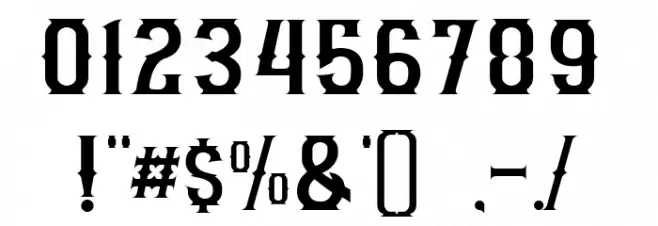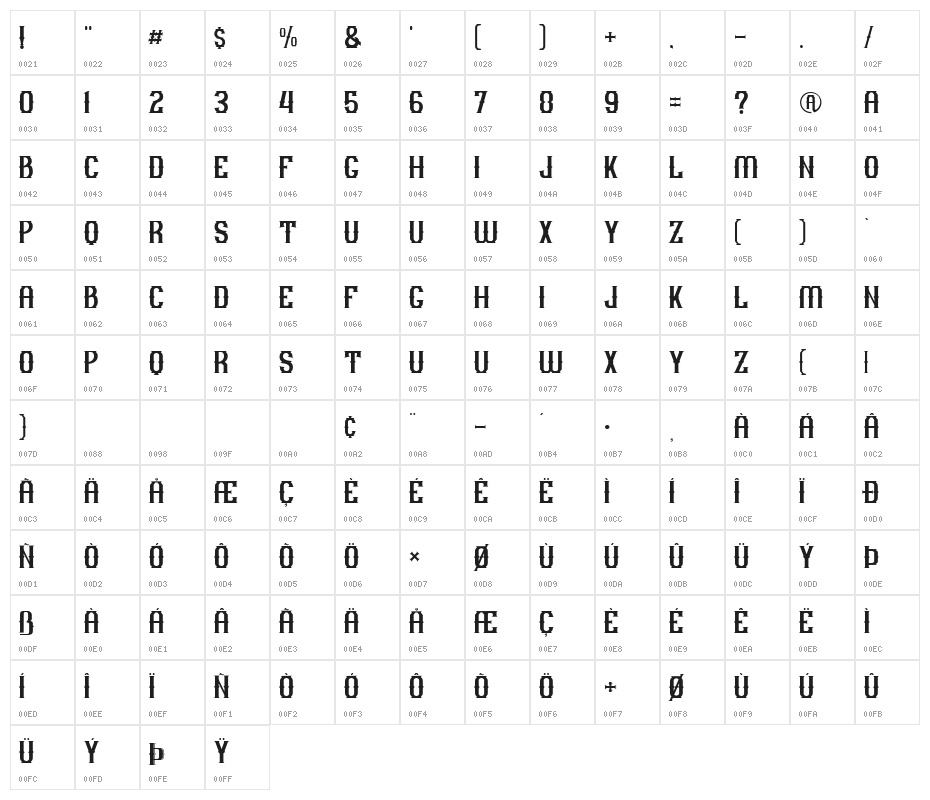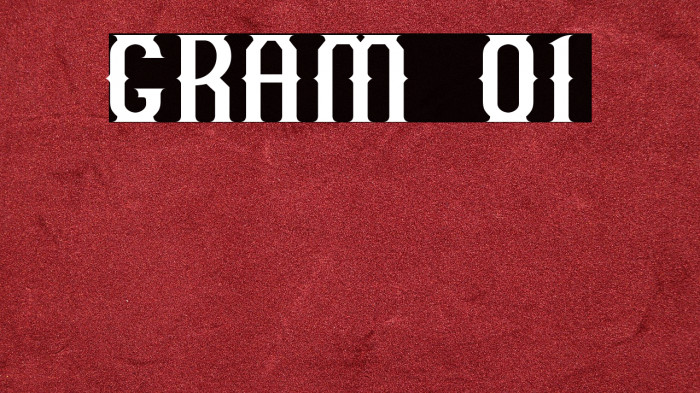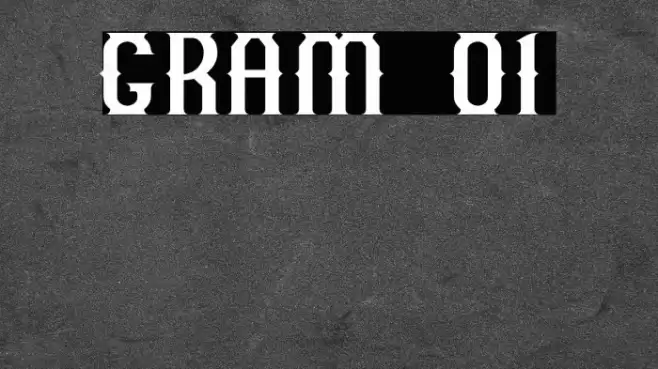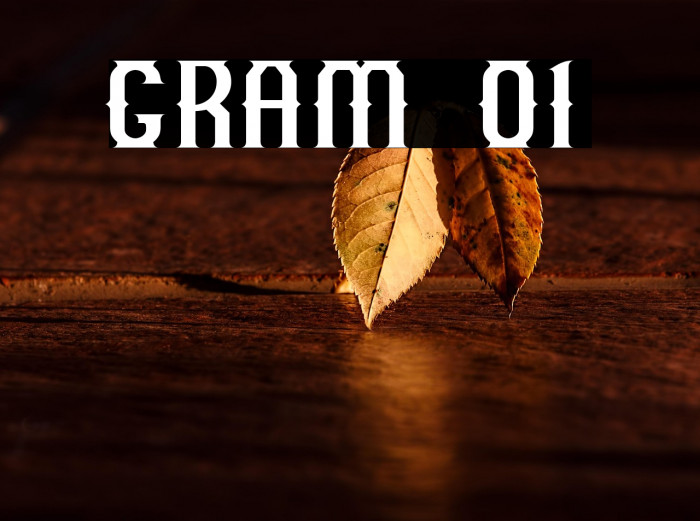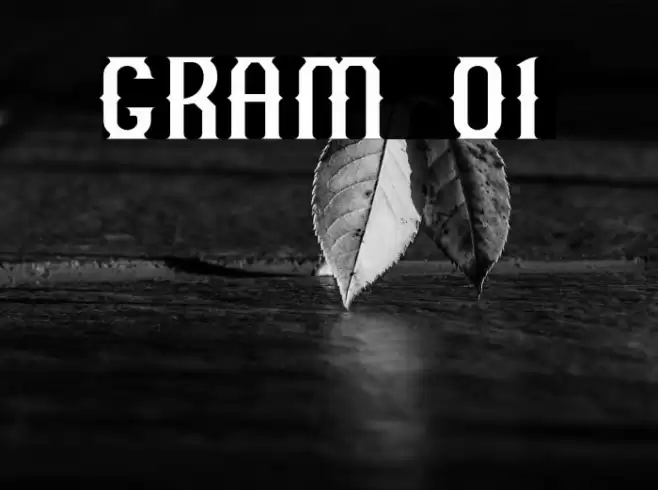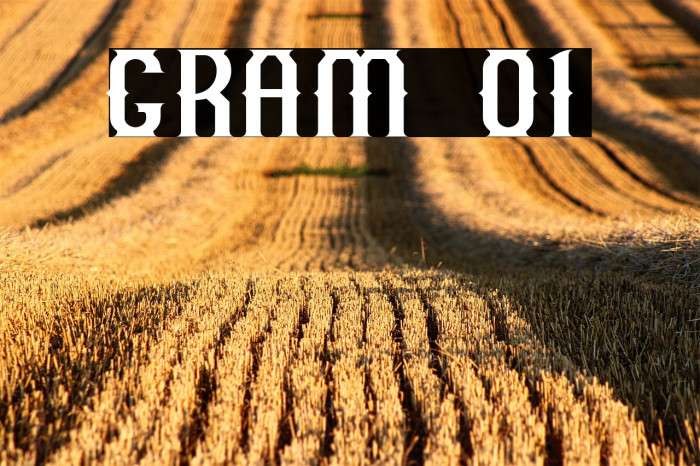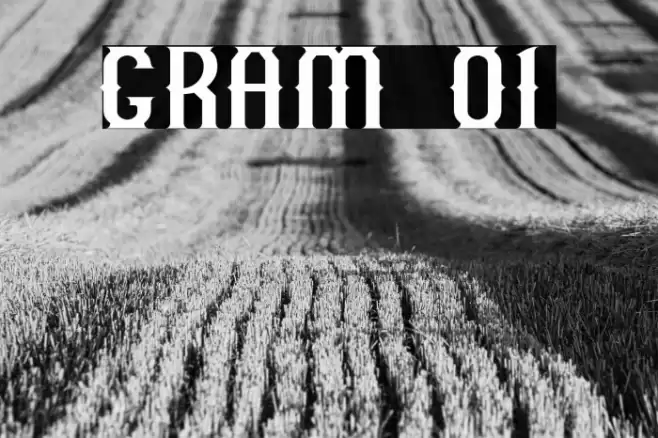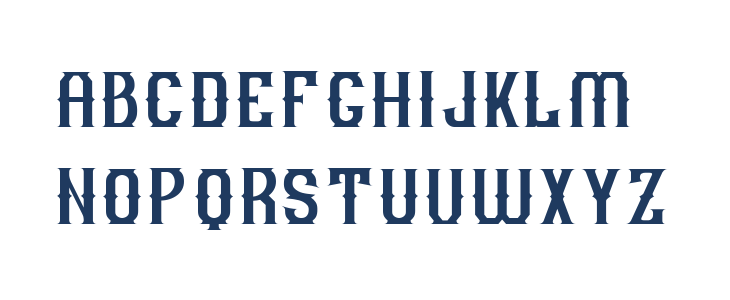
GRAM 01 Font
GRAM 01 Description
This font features a bold and striking design with strong geometric elements and sharp edges. The characters are tall and narrow, giving a condensed appearance that emphasizes verticality. The uppercase letters have a distinct, almost industrial feel, with angular serifs and a robust presence. The numbers and special characters maintain this bold style, ensuring consistency across all glyphs. The font's unique style makes it stand out, suitable for attention-grabbing headlines or titles.